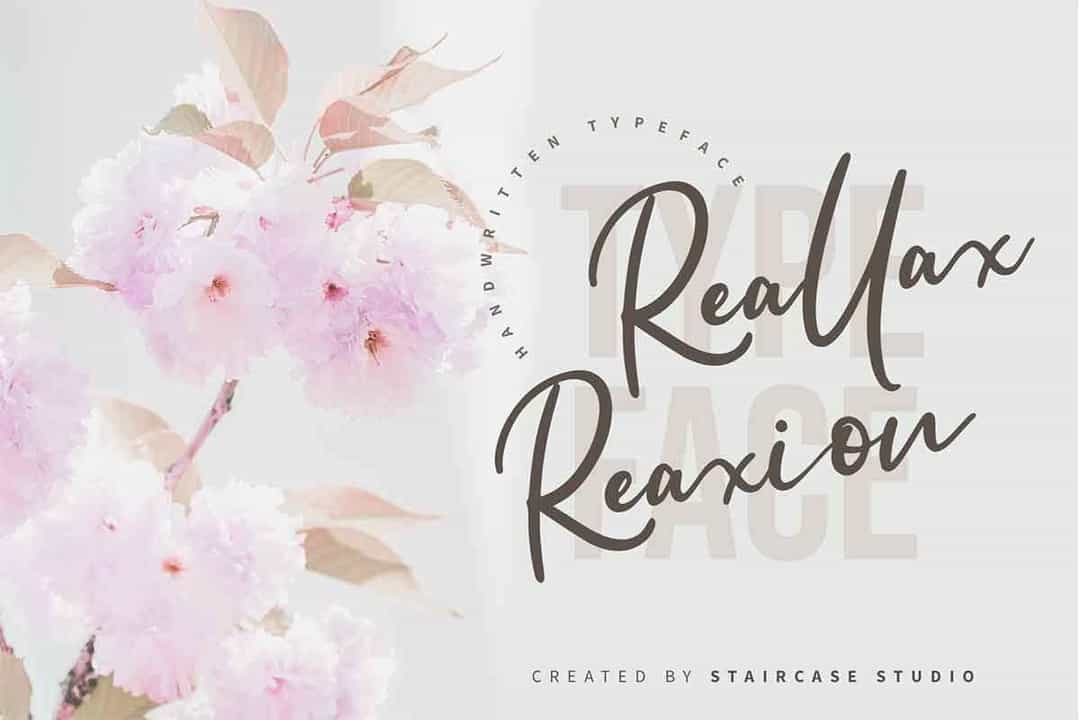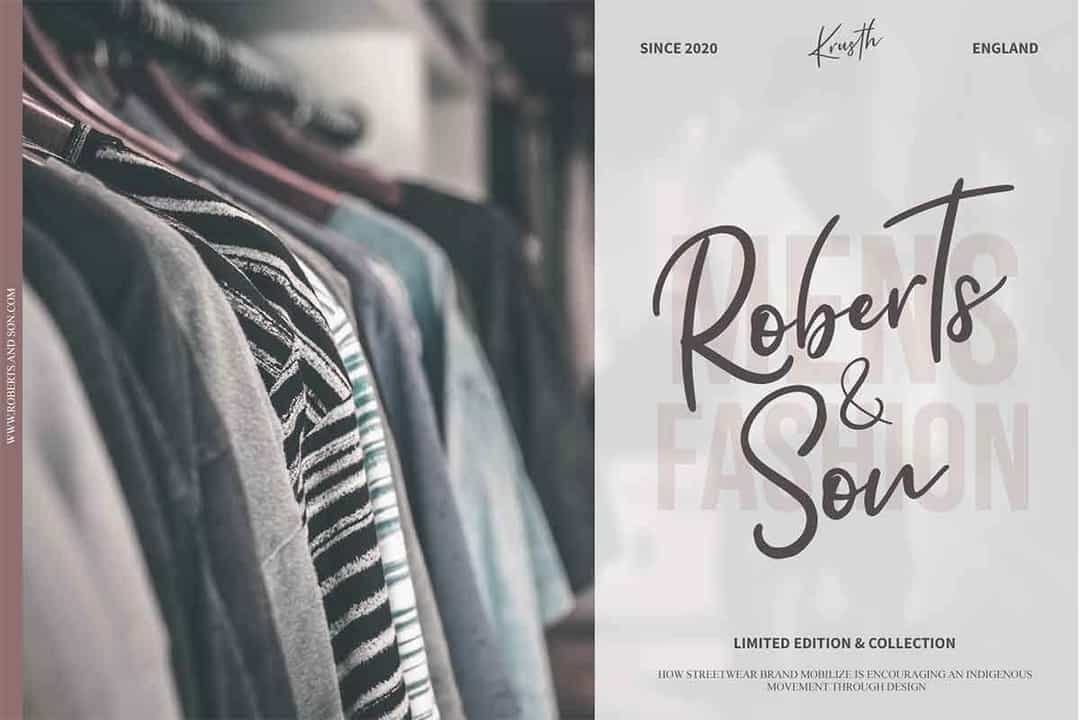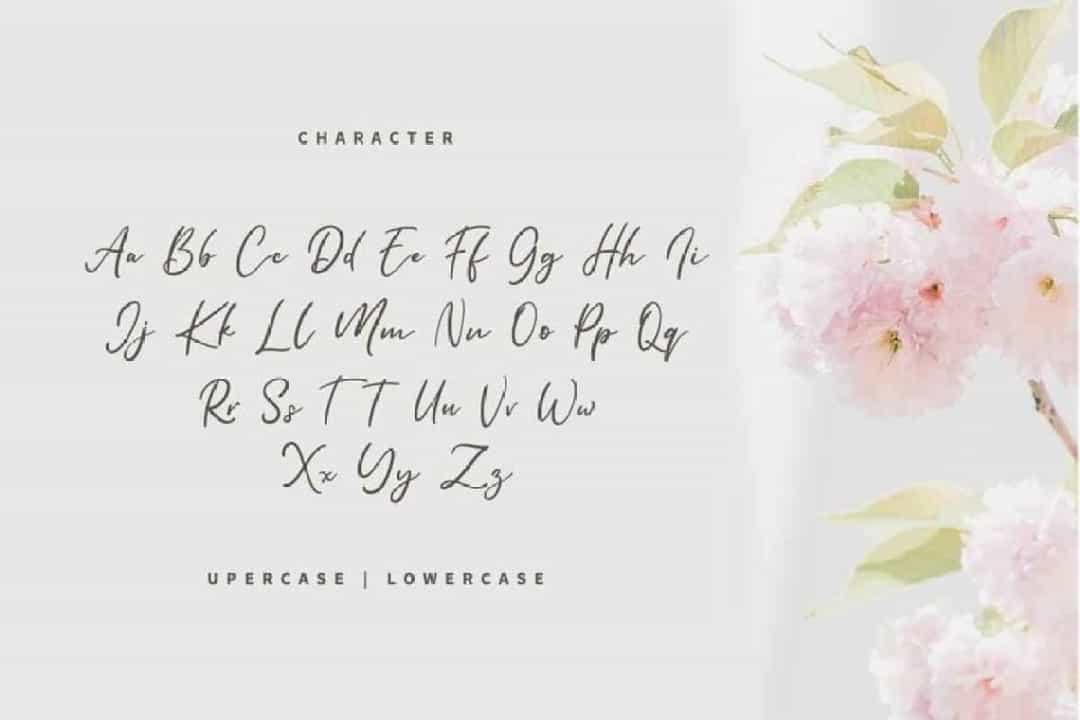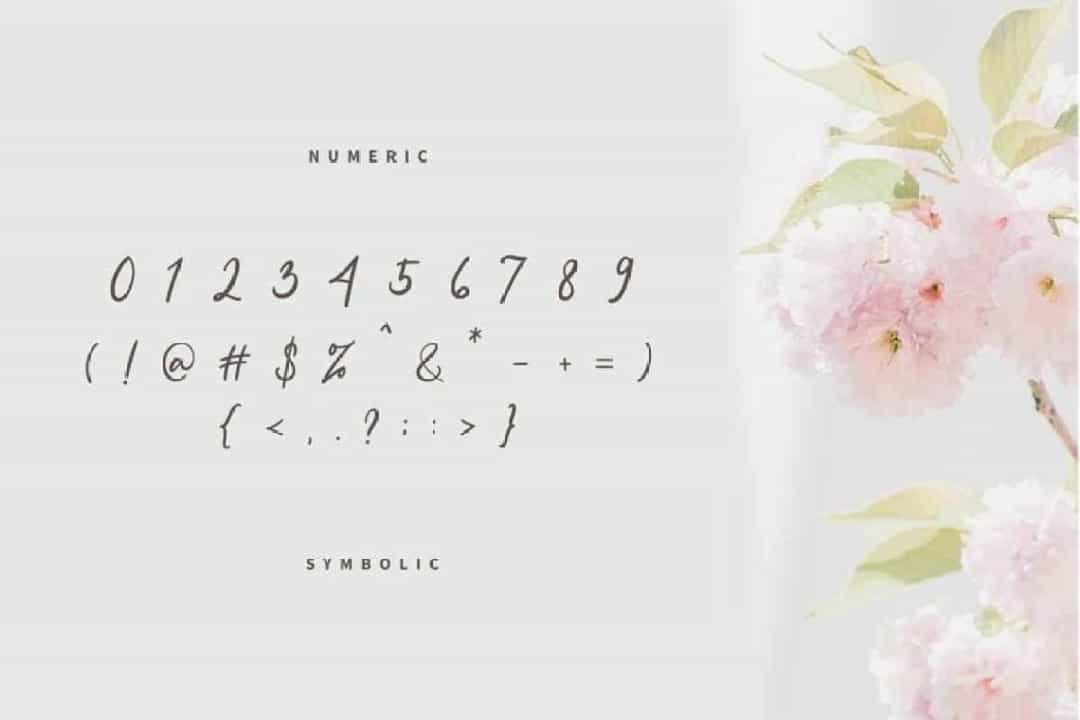
Reallax Reaxion is a contemporary hand-written script font that’s perfect for feminine branding headers for social media packaging for products wedding invitations, wedding cards, and so on. It also includes stylistic alternatives and ligatures to recreate the natural look of calligraphy.